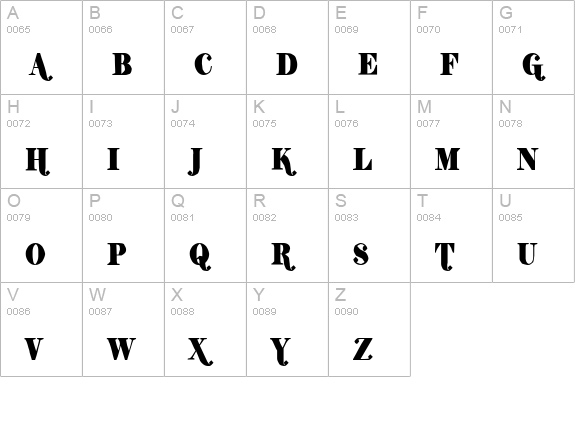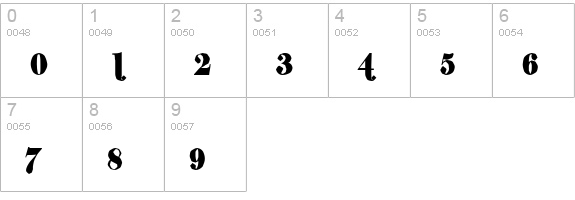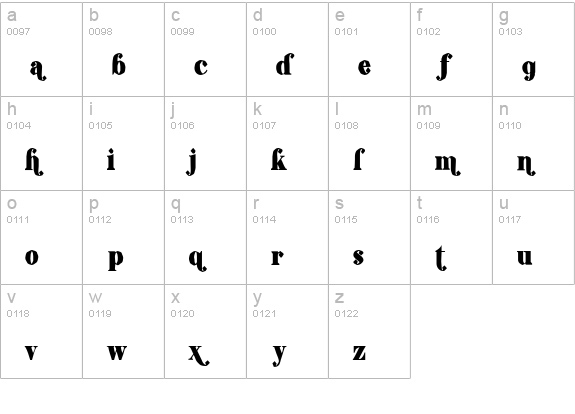
Introducing Shifty Chica 2, a captivating and versatile font that will bring a touch of elegance and playfulness to your designs. With its unique combination of sleek curves and bold strokes, Shifty Chica 2 exudes a sense of confidence and modernity, making it the perfect choice for a wide range of projects. This font is not only visually stunning, but it also offers a wide range of customization options. With multiple stylistic alternates and ligatures, you can easily create a personalized look that suits your specific design needs. Whether you're working on a logo, branding materials, invitations, or any other creative project, Shifty Chica 2 is sure to make a lasting impression. One of the best parts about Shifty Chica 2 is that it is freely available to download at FontsMarket.com. This means that you can easily access this fantastic font without having to spend a single penny. It's a great opportunity to enhance your design arsenal with a high-quality font that is both visually striking and versatile. So why wait? Download Shifty Chica 2 today and unlock a world of creative possibilities. Whether you're a professional designer or just starting out, this font is sure to elevate your projects to new heights. With its unique blend of elegance and playfulness, Shifty Chica 2 is bound to become your go-to font for all your design needs. Don't miss out on this incredible opportunity to add a touch of magic to your creations. Get your hands on Shifty Chica 2 now, exclusively at FontsMarket.com.